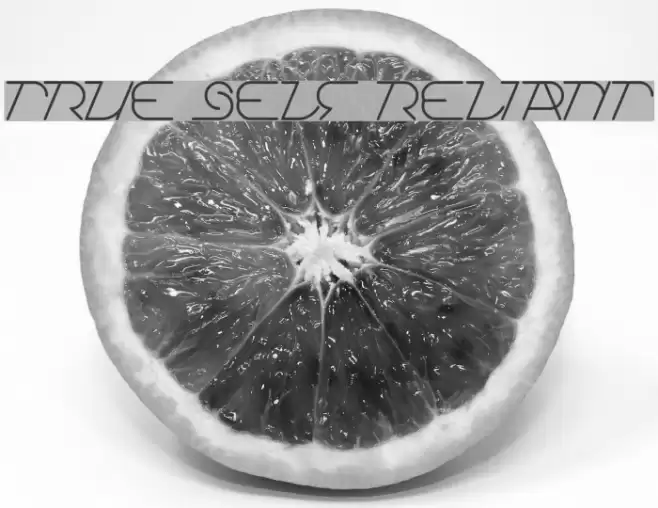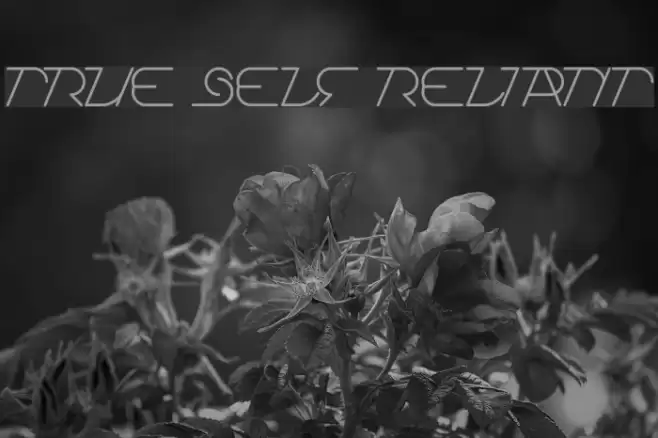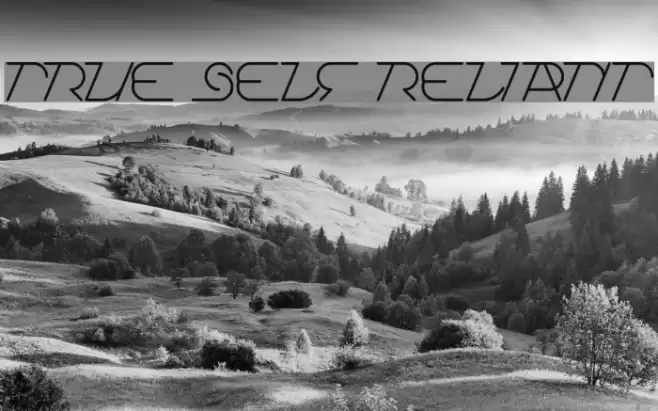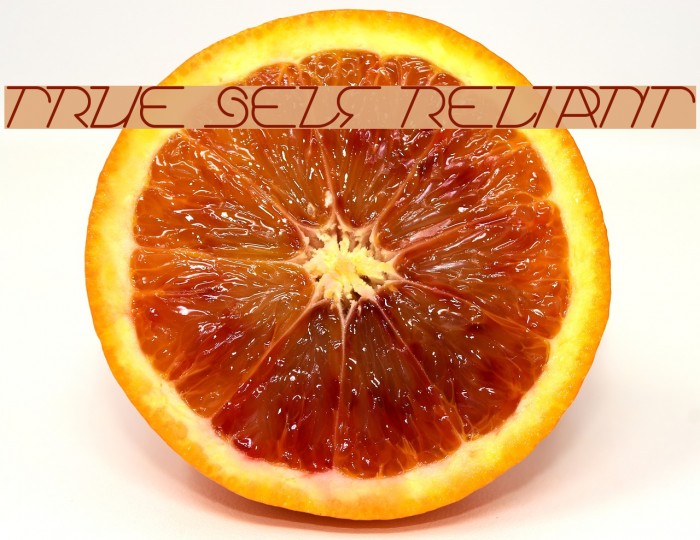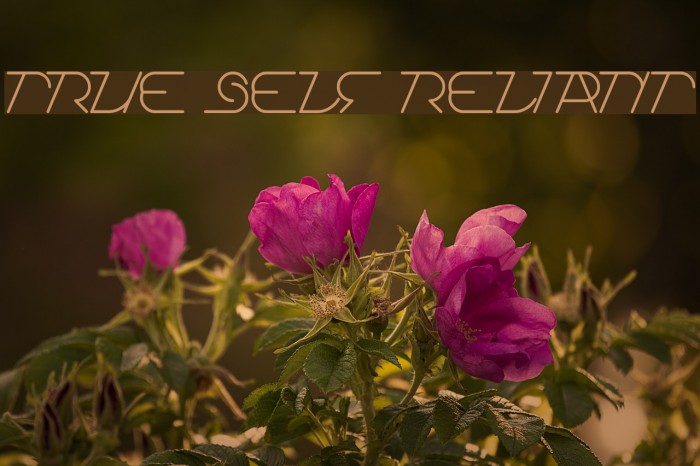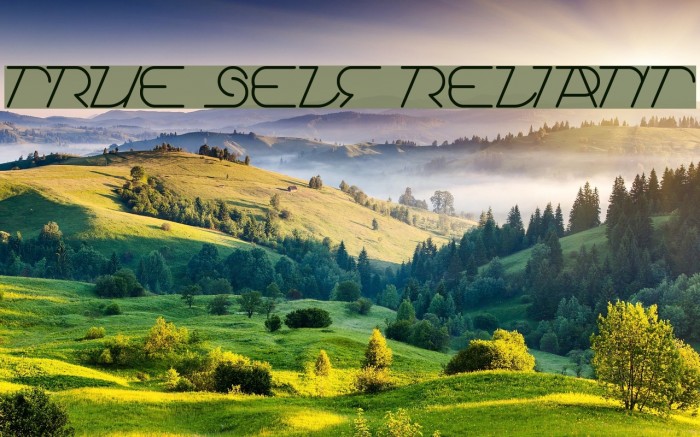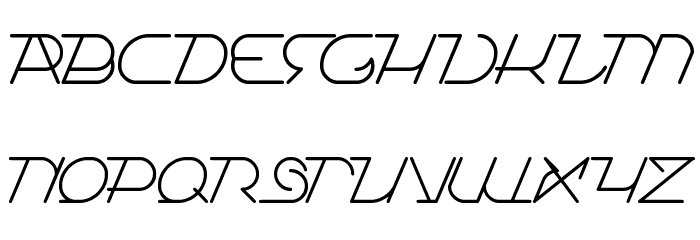
True Self Reliant Font
True Self Reliant Description
This font features a sleek, modern design with a futuristic flair. The characters are constructed with clean, angular lines that give it a geometric and technical appearance. The uppercase letters have a consistent height and width, maintaining a uniform look across the board. The lowercase letters mirror the uppercase in style, ensuring a cohesive visual flow. The numbers and special characters are designed to match the overall aesthetic, with sharp edges and a streamlined form. This font is ideal for projects that require a contemporary and innovative touch.
A sleek, modern font with geometric, angular lines and a futuristic style from Farsi fonts.